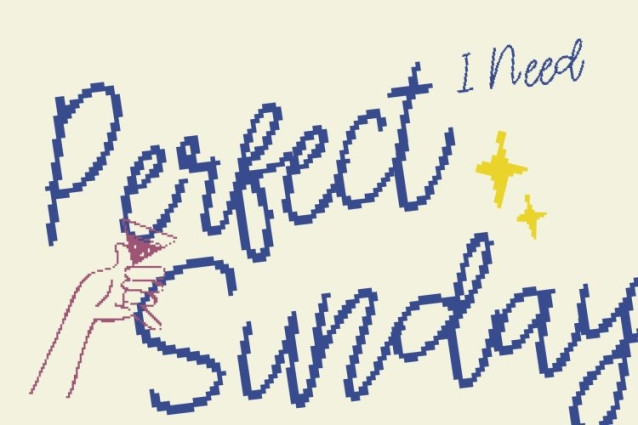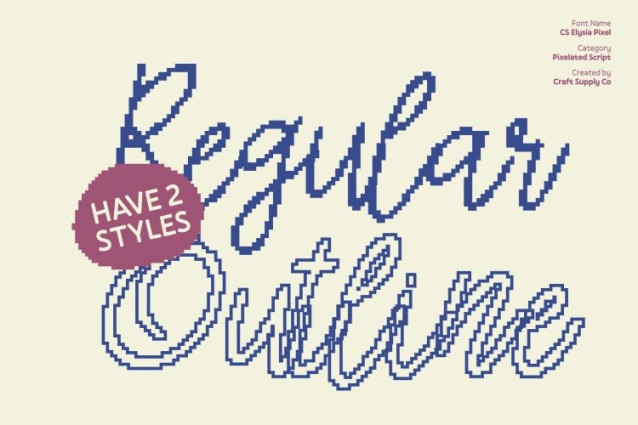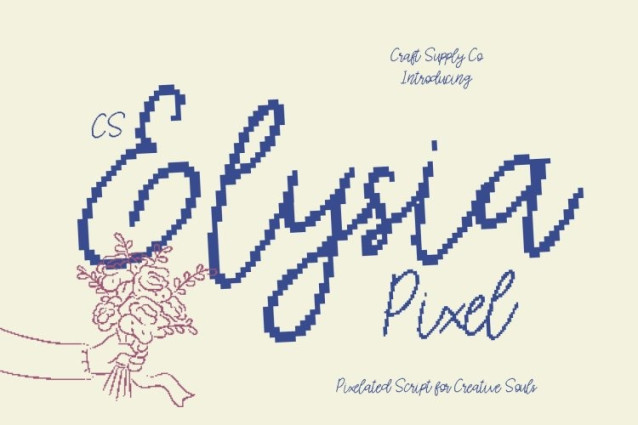
CS Elysia Pixel Font
CS Elysia Pixel Font This is an elegant script font that captures sophistication through smooth, flowing strokes reimagined in a pixel style. Its graceful curves and balanced rhythm retain the beauty of handwritten elegance while adding a subtle digital texture. This fusion creates a unique visual charm romantic, refined, and eye-catching on screen.
Effortless Style for Modern and Retro Luxury
Designed with harmony and precision, this font delivers a luxurious feel with a modern–retro twist. The consistent stroke weight and gentle motion give it a polished appearance, while the pixel construction introduces a nostalgic digital nuance. It feels classic yet contemporary, perfect for designs that blend elegance with a touch of old-technology aesthetics.
Perfect for Elegant, Romantic, and Digital Designs
This font shines in wedding invitations, fashion branding, luxury packaging, and stylish digital visuals. Its connected letterforms express warmth and intimacy, while the pixel style enhances its presence in digital media, making every word feel both personal and visually distinctive.
Timeless Versatility with Digital Charm
With its refined monoline structure and elegant personality, this font adapts beautifully across print and screen-based projects. More than just a script, this font is a graceful expression of style bringing flow, poise, and sophisticated pixel elegance to any creative work.